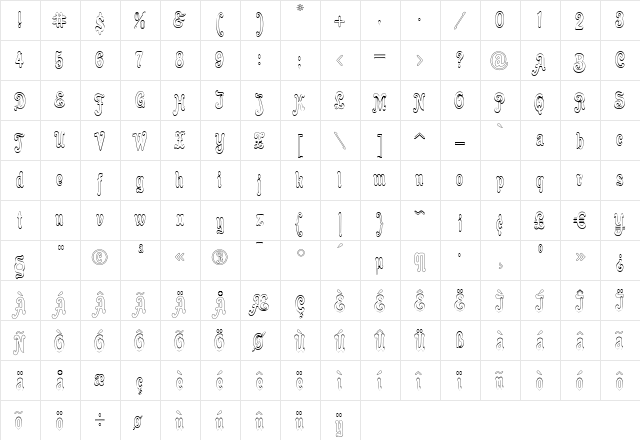
Cacao Plain Outline Regular
Design Context for Cacao Plain Outline Typeface
Cacao Plain Outline brings ornamental detail and strong personality to headlines and identities, where visual impact matters more than quiet functionality.
Font Pairing: Pair with a clean neutral sans-serif for body copy to let Cacao Plain Outline's character lead without overwhelming the composition.
Pro Tip: Treat Cacao Plain Outline as the centrepiece of your typographic hierarchy. One strong heading set in a decorative face can carry an entire layout.